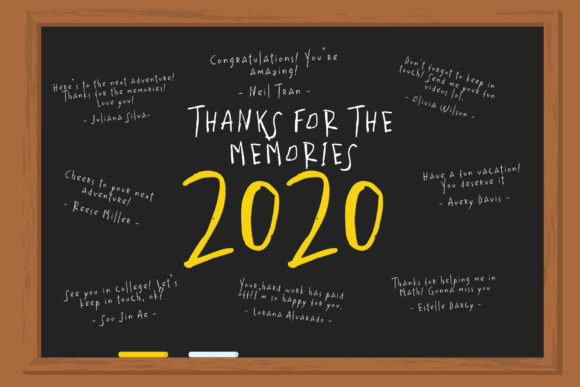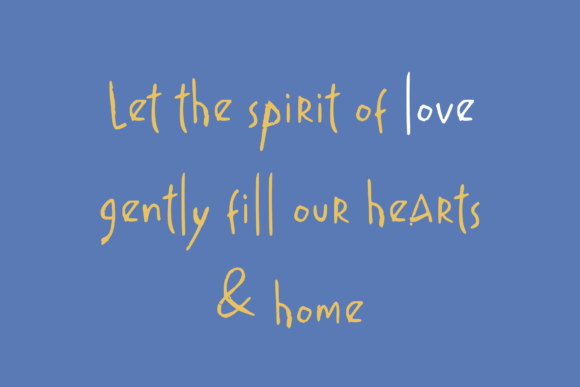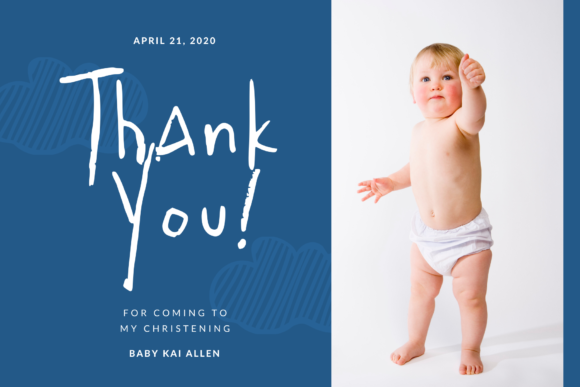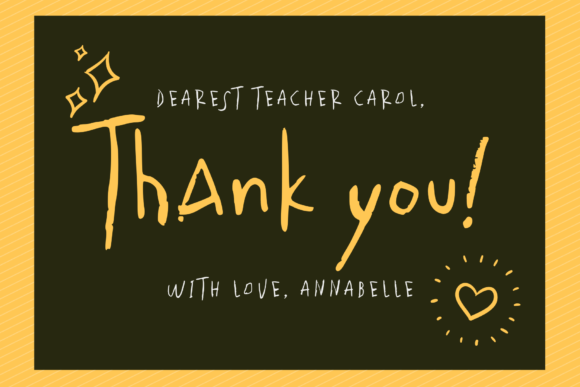
About Checkout Font
Checkout is a cute and simple lettered handwritten font that can be used for all chalkboard quotes or teaching material! Its authentic look will add a personal and realistic feel to your designs. This font is PUA encoded which means you can access all glyphs and swashes with ease!